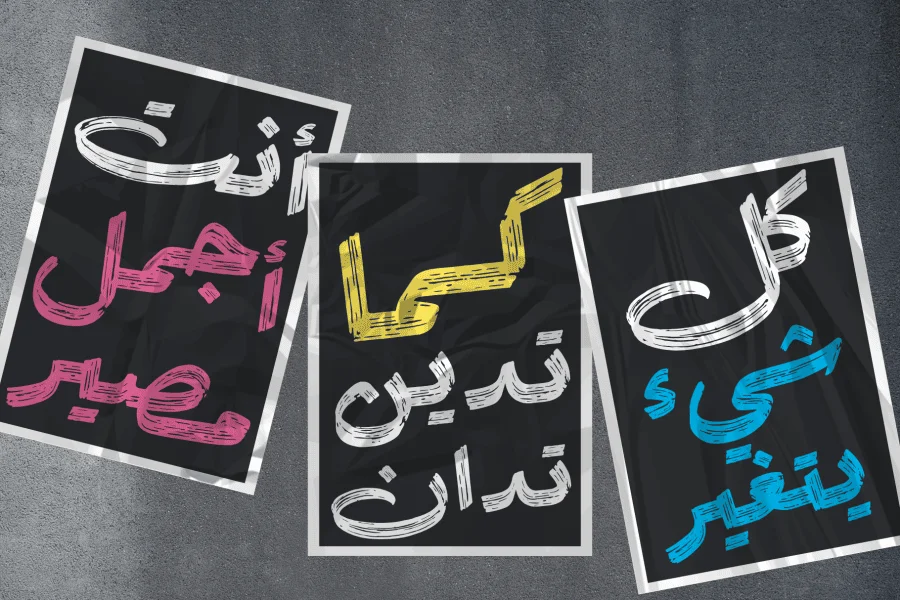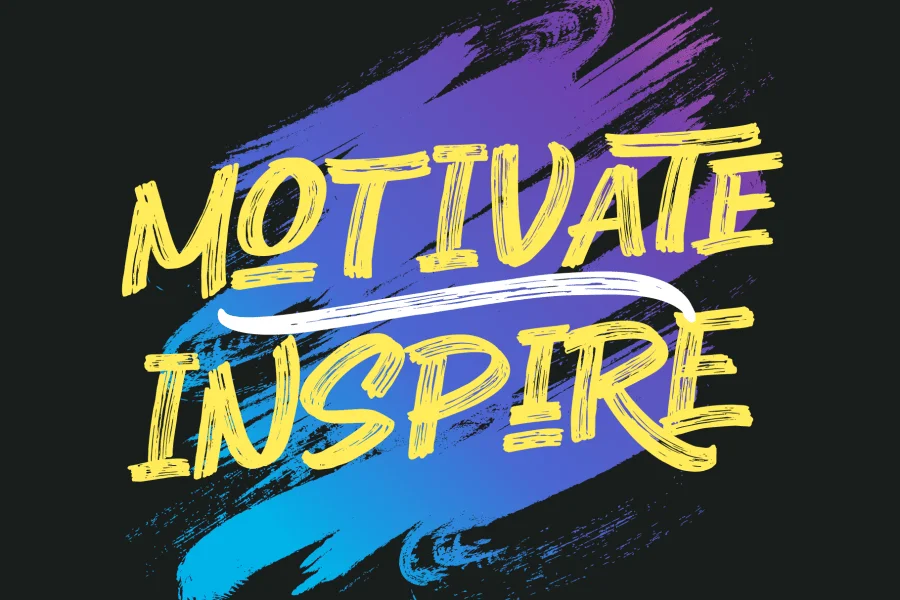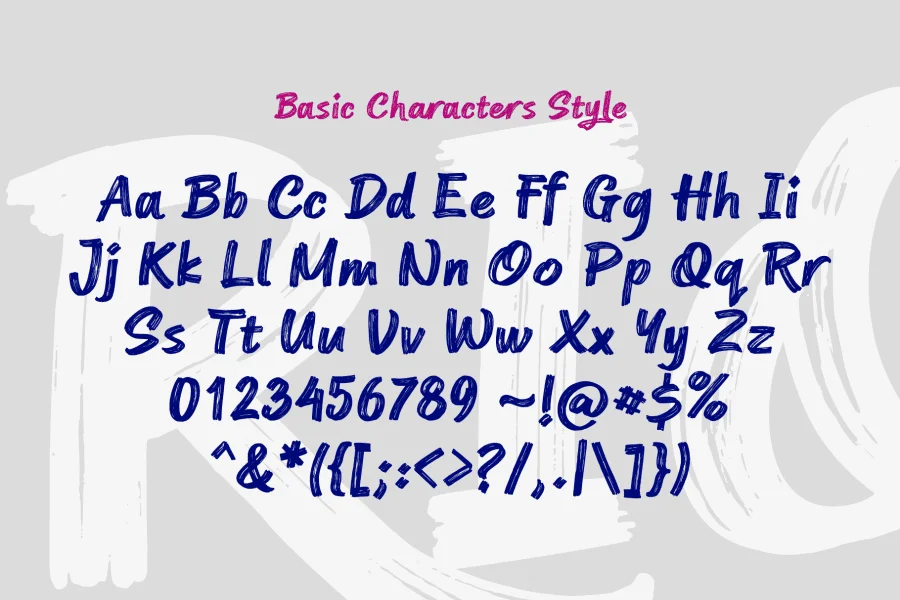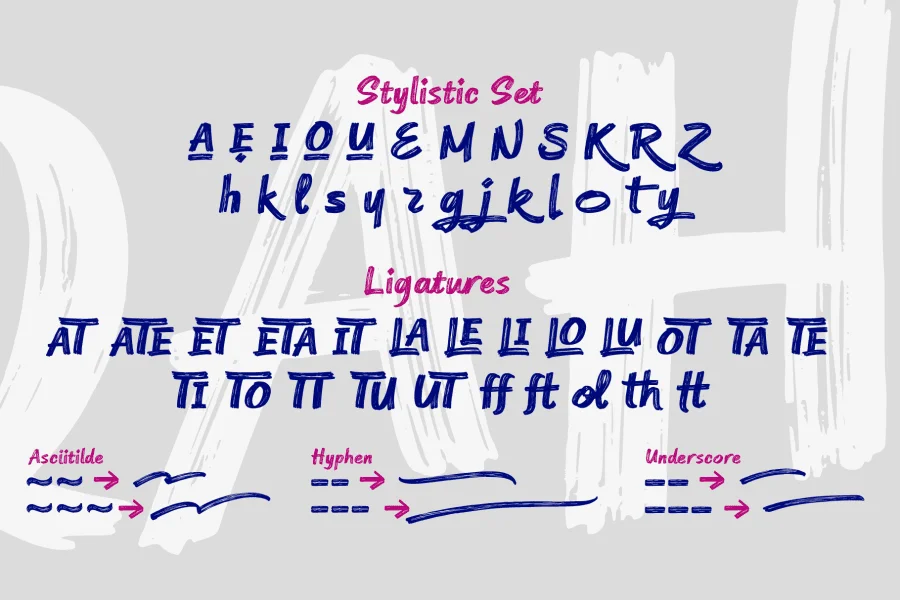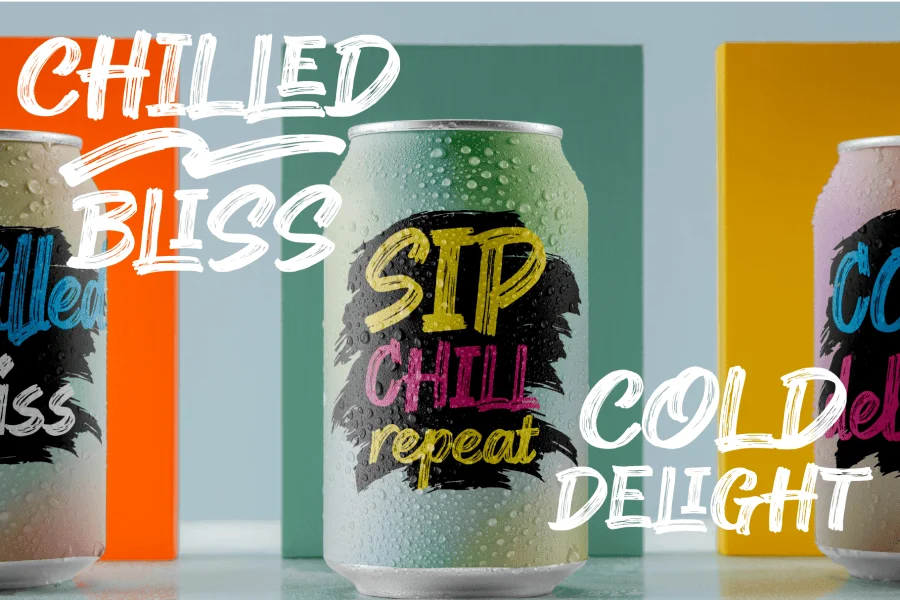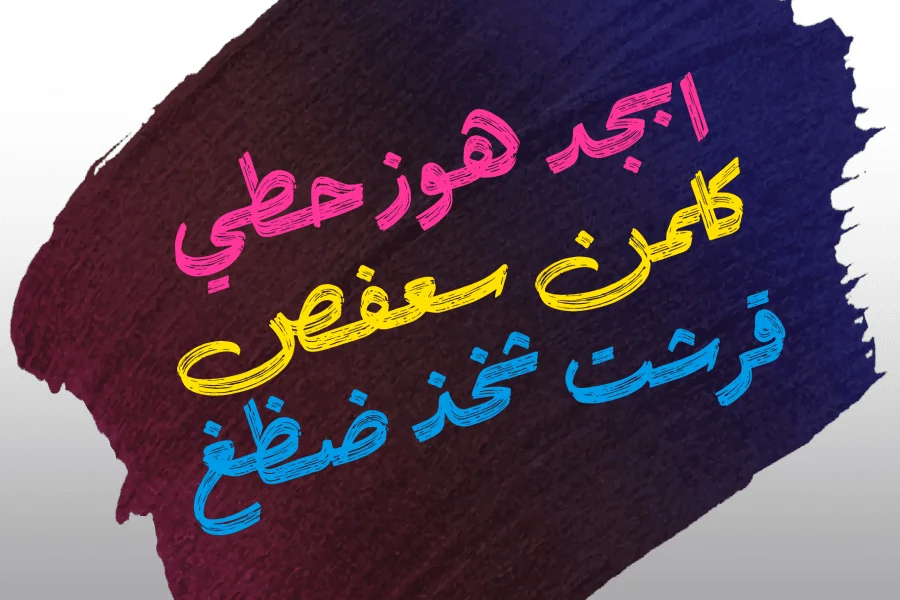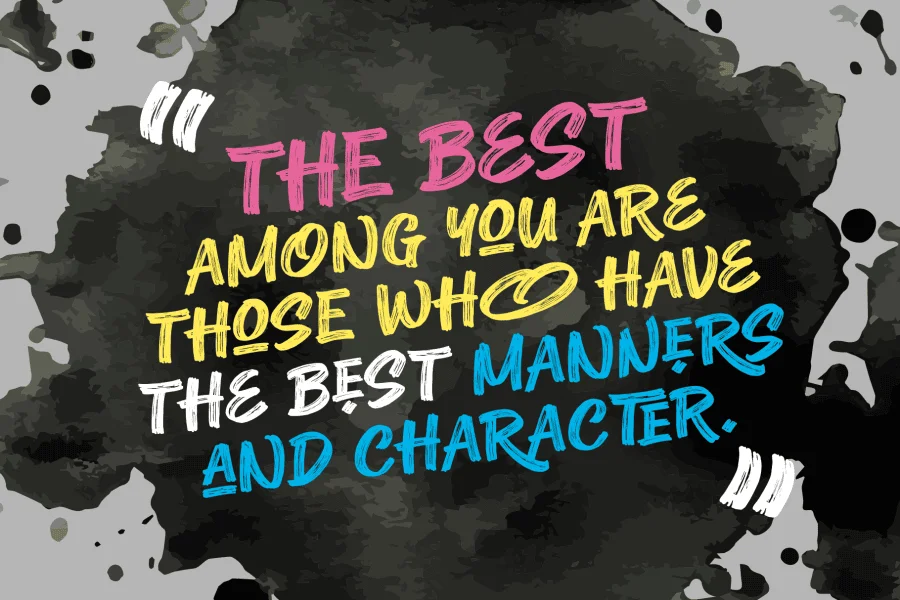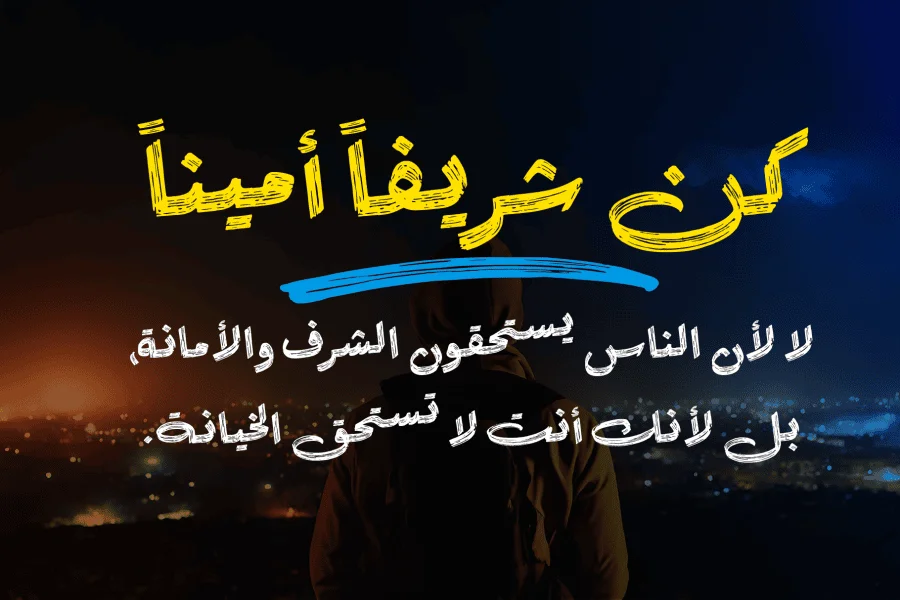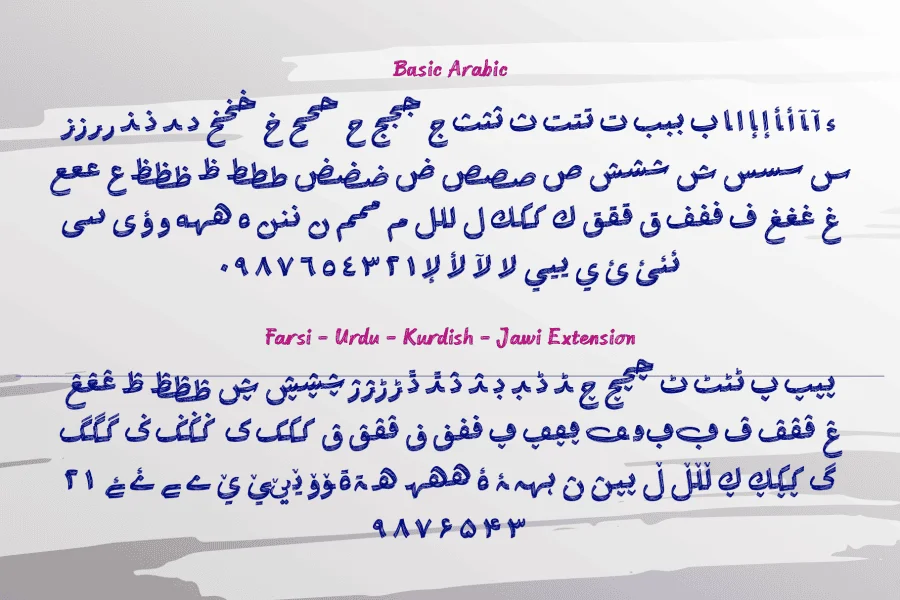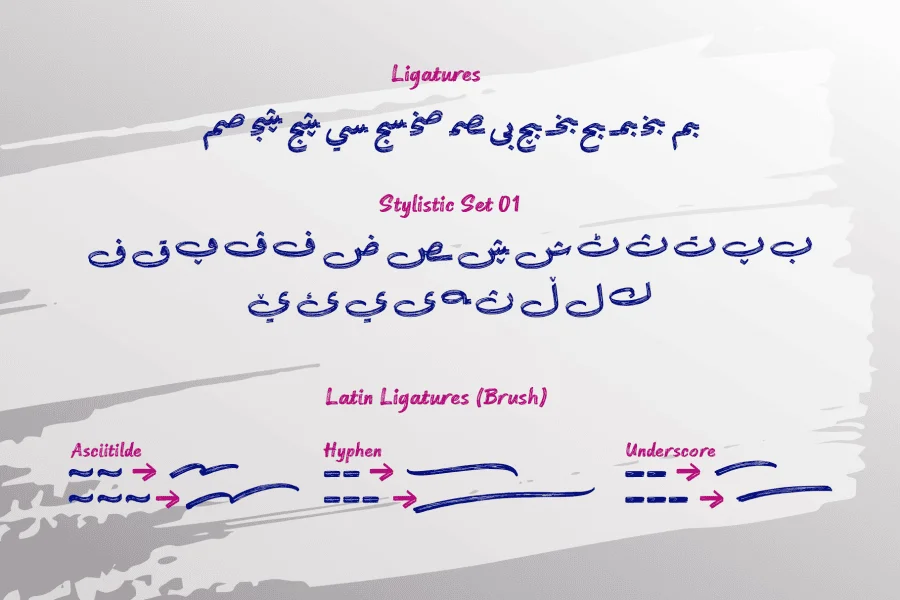
Lemon Brush Arabic Font is a stunning handwritten brush font known for its dynamic dry brush stroke style. Lemon Brush Arabic’s distinct texture and fluidity. An ideal choice for adding a personal and artistic touch to a variety of design tasks. The typeface has numerous alternatives and ligatures, which enhances its natural handwritten appearance and ensures that each use feels fresh and spontaneous.
One of Lemon Brush Arabic’s distinguishing traits is its adaptability. It works well as a typeface for header text, where its bold and expressive strokes can quickly draw attention. Provides a creative flavor to poster designs, making the text both readable and visually appealing.
Furthermore, Lemon Brush Arabic is more than simply a beautiful design; it is also practical. The font’s numerous alternates and ligatures provide designers with a plethora of options to experiment with, allowing for a customized and diverse appearance with each use. This flexibility ensures that no two designs appear the same, giving each one a fresh and unique touch.
Lemon Brush font is an excellent typeface for a variety of creative applications. Its textured, flowing strokes and vast customization options make it an excellent choice for designers wishing to add a personal and artistic touch to their work. Lemon Brush combines both aesthetic appeal and utilitarian utility.